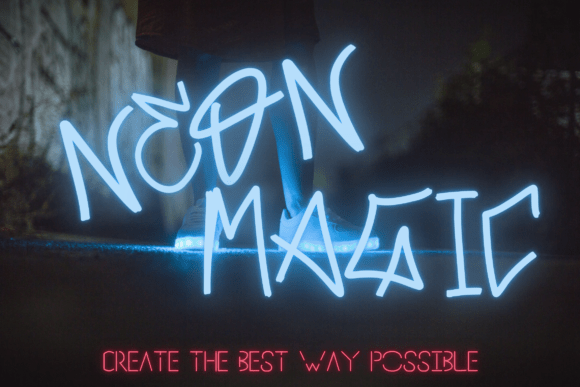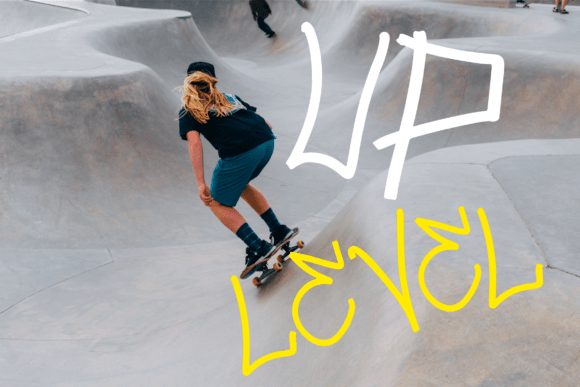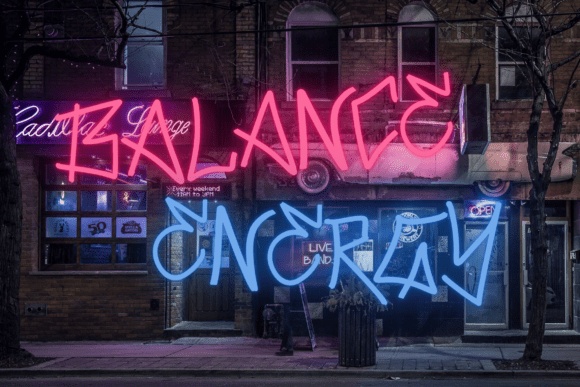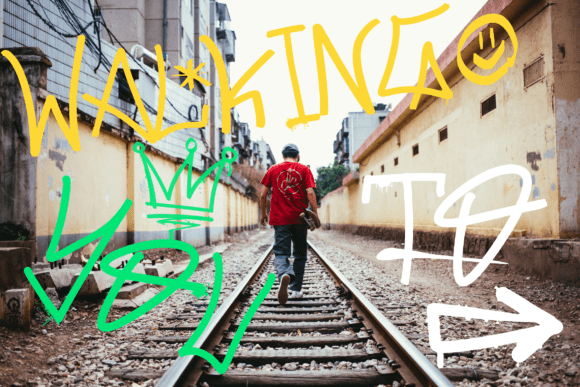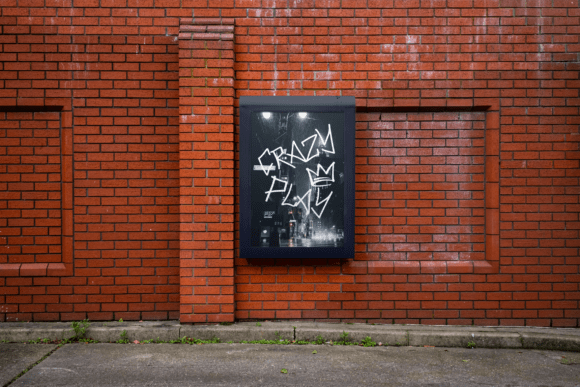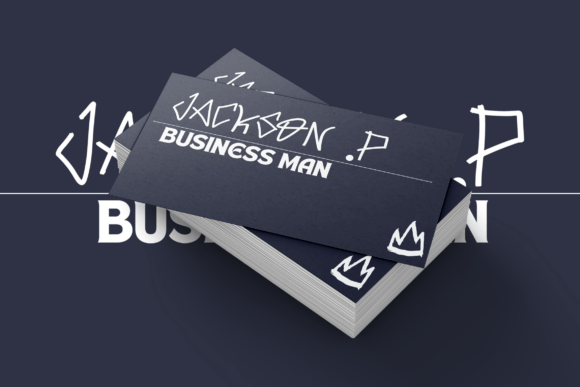
Graffikid Font: Unleash Your Creativity with a Playful Graffiti Display Font
Have you ever been working on a design project, and suddenly, you’re stuck on finding the perfect font? I recall a recent experience where I was tasked with creating a bold and eye-catching poster for a music event. The client wanted something that exuded urban edge and youthful fun. After scouring through numerous font options, I stumbled upon the Graffikid font, and it instantly clicked!
Graffikid is a bold and energetic display font inspired by street art and graffiti lettering. With its playful curves and hand-drawn vibe, this font is perfect for designs that need a mix of urban edge and youthful fun. In this article, we’ll dive into the world of Graffikid, exploring its features, uses, and everything in between.
Design Highlights
The Graffikid font boasts several design highlights that make it an excellent choice for creative projects:
- Hand-drawn graffiti style with playful energy 🎨
- Bold and easy-to-read letterforms 📚
- Perfect for both print and digital use 📊
- Adds a fresh, street-inspired look to any design 🌆
Honest Review
Here are some aspects of Graffikid that I absolutely love:
- ✨ The font’s playful energy is infectious and can instantly elevate your design.
- ✅ The bold letterforms make it perfect for headlines, posters, and attention-grabbing designs.
- 🎉 The hand-drawn style gives it a unique, human touch that sets it apart from other fonts.
While Graffikid is an excellent font, there are a few minor quirks to be aware of:
- 🤔 The font’s bold style may not be suitable for body text or long paragraphs.
- ⚠️ Some characters may require manual kerning for optimal spacing.
The Graffikid font was inspired by the vibrant street art scene, where creativity knows no bounds. The designer aimed to capture the playful energy and rebellious spirit of graffiti, while making it accessible for designers and creatives to use in their projects.
Q: What type of designs is Graffikid best suited for?
A: Graffikid is perfect for designs that require a bold, urban edge and youthful fun, such as posters, apparel, branding, and creative projects.